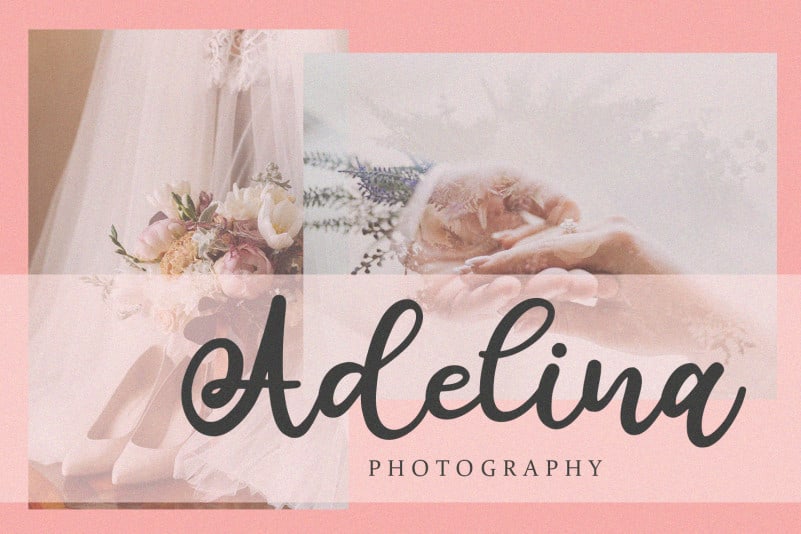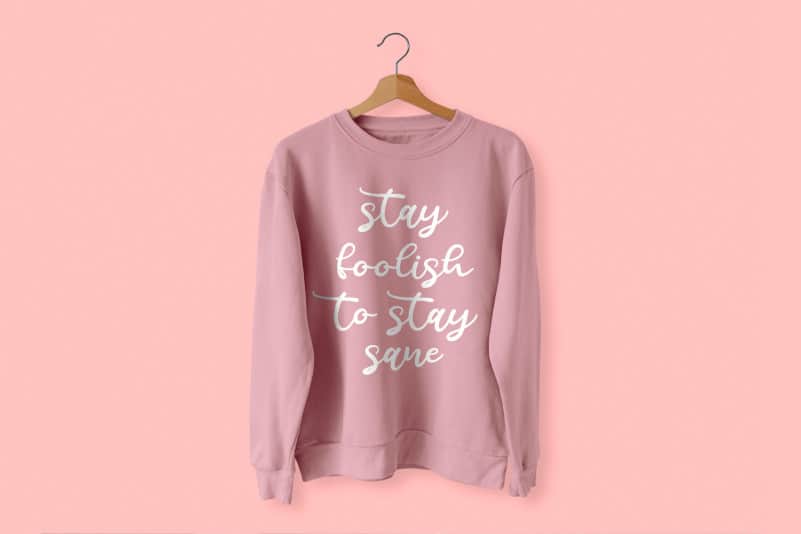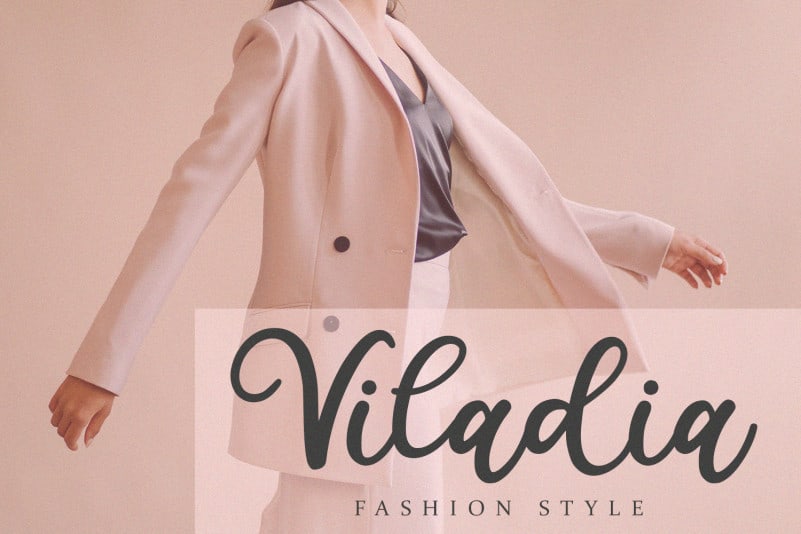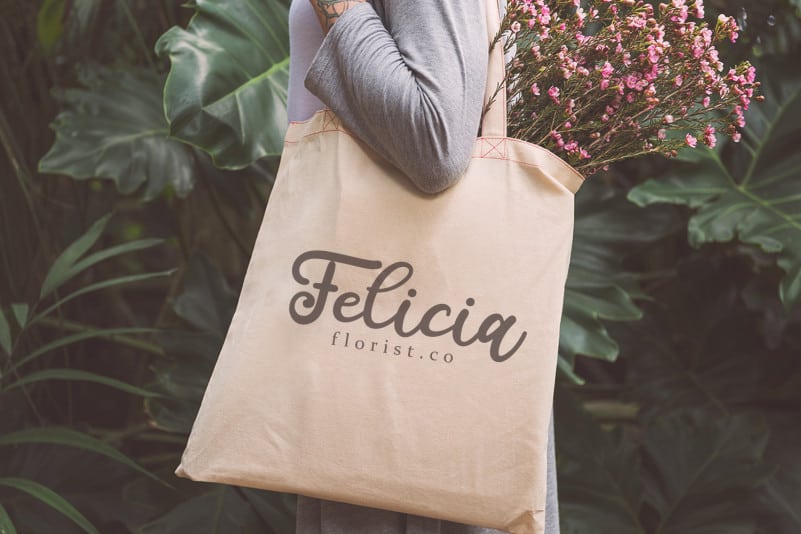
Calista – Handwritten Font
Calista – Handwritten Font is a new handwritten typeface. It looks gorgeous on wedding invitations, thank you cards, quotes, greeting cards, logos, business cards, branding, homeware designs, product packaging, mugs, posters, shopping bags, t-shirts, book covers, invitation cards, greeting cards, label, photography, watermark, special events, and every other design which needs a handwritten touch.